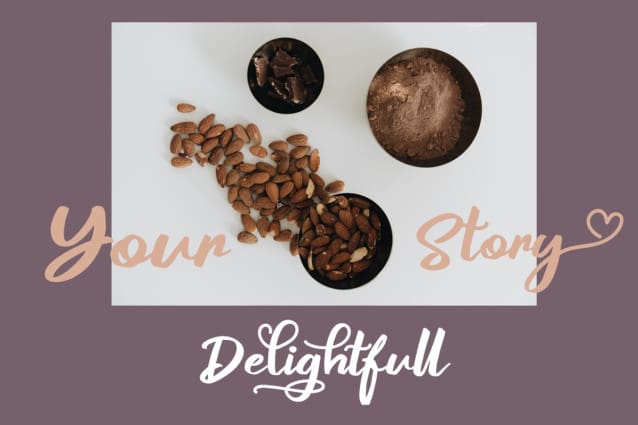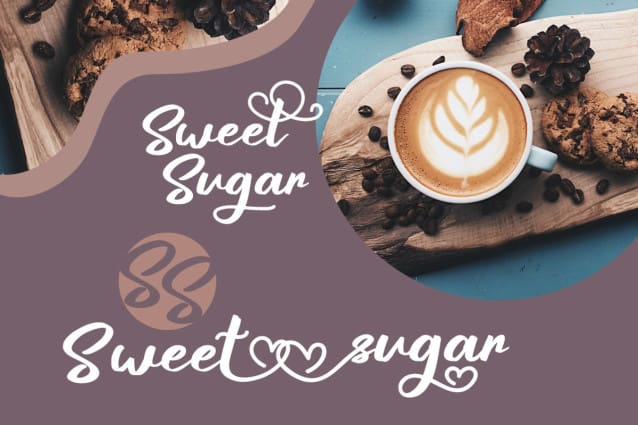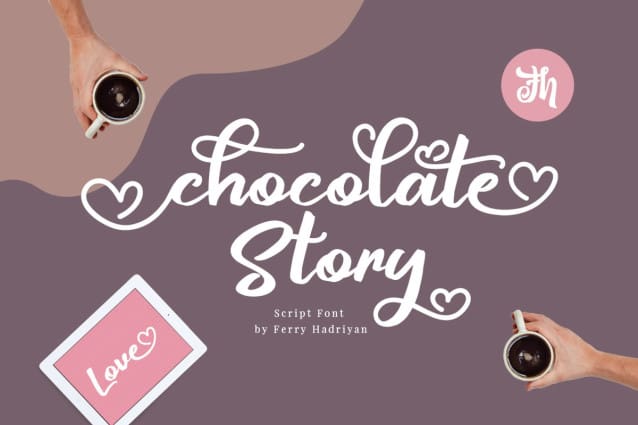
Chocolate Story Font
Chocolate Story Font is script font with handlettering love chocolate valentine brush style, with opentype feature include of the font. Suitable for design, element design, wedding, event, t-shirt, logo, badges, sticker, and awesome work, etc..